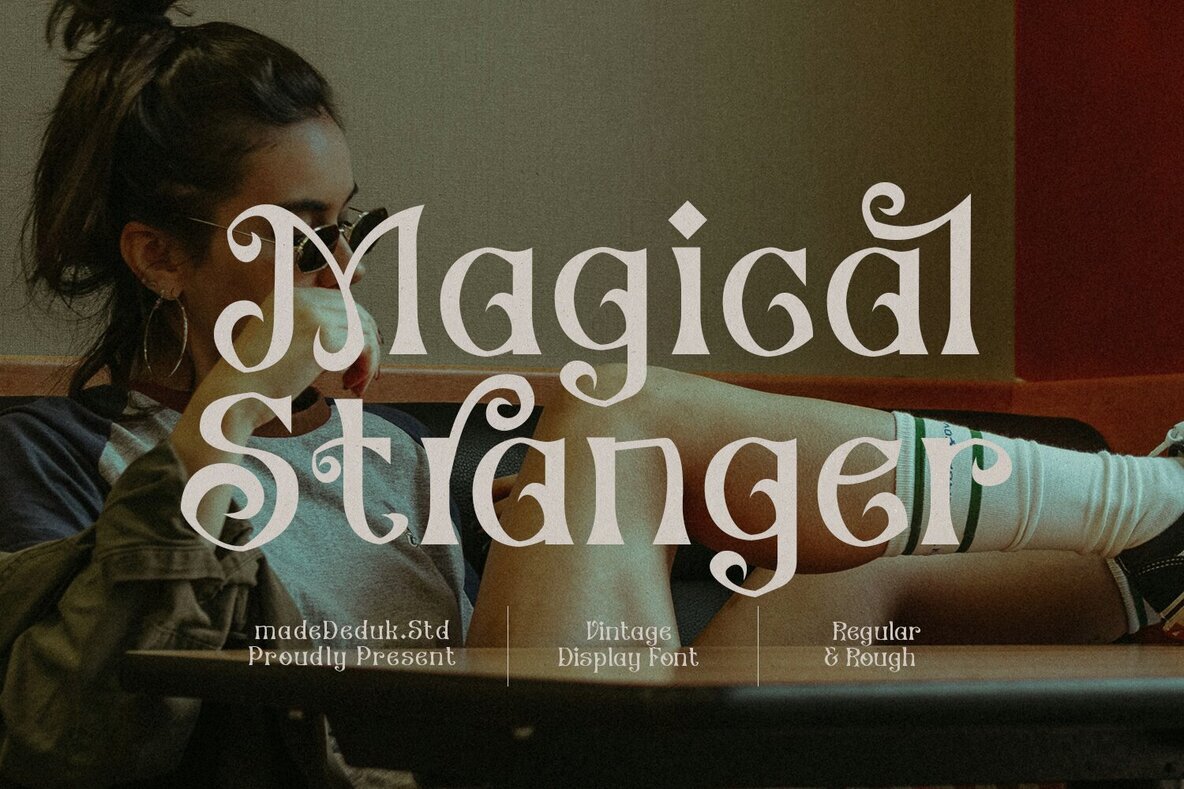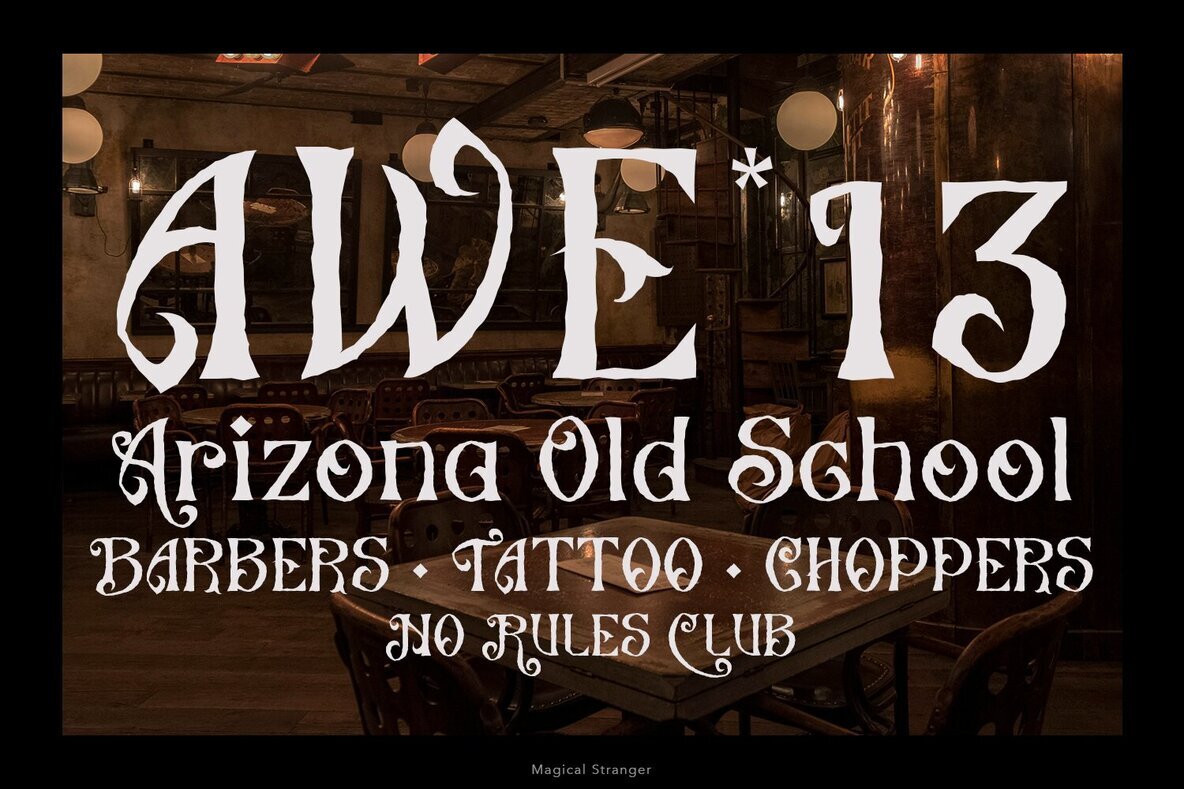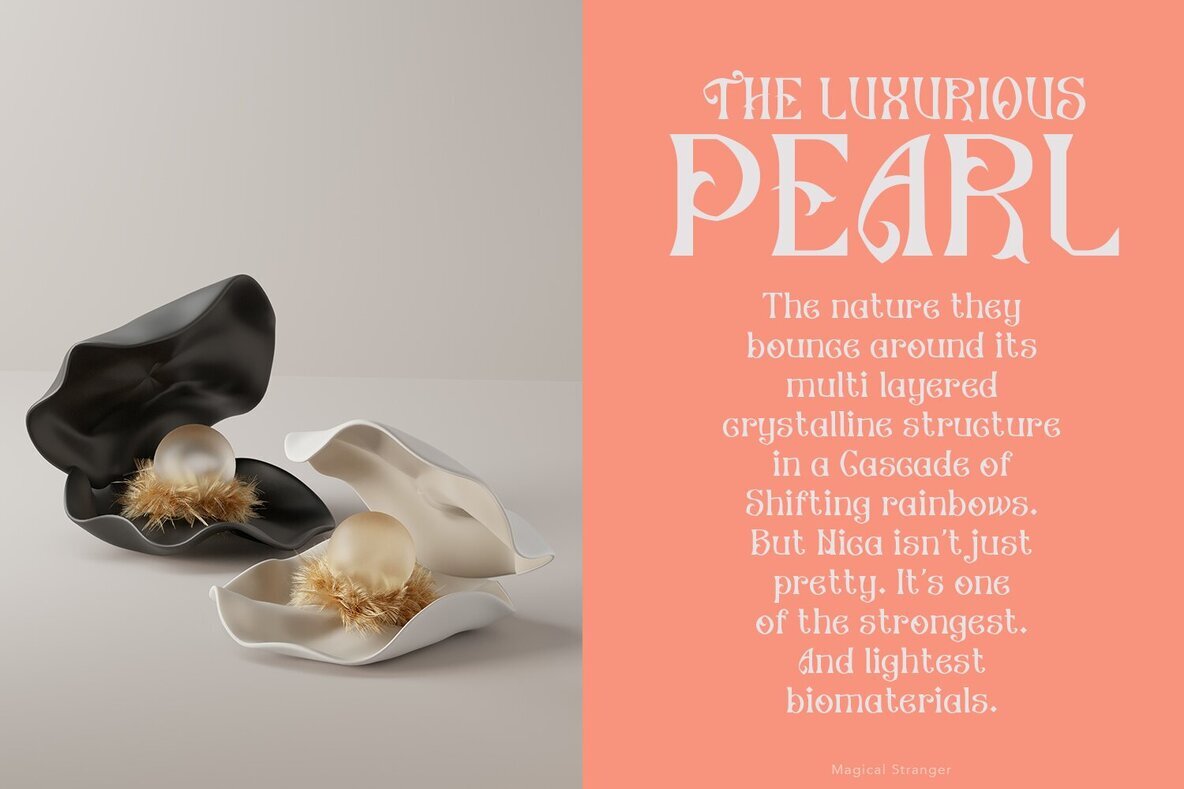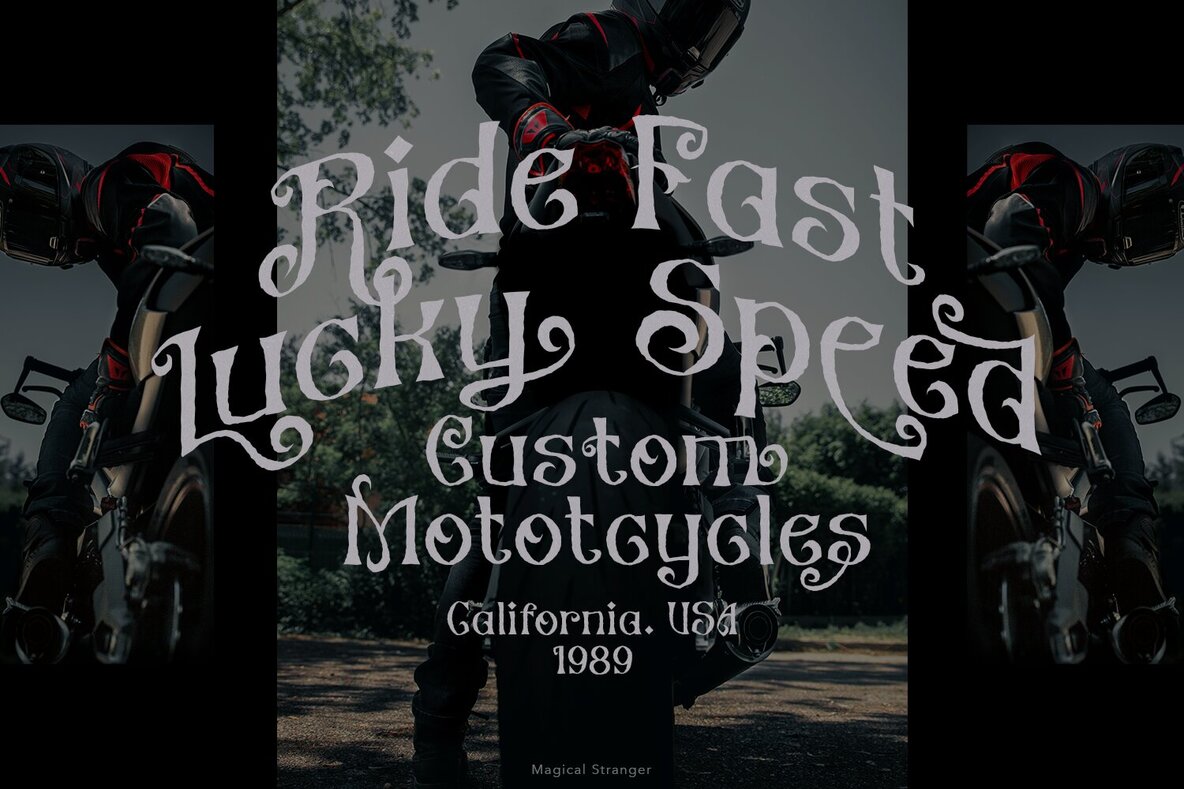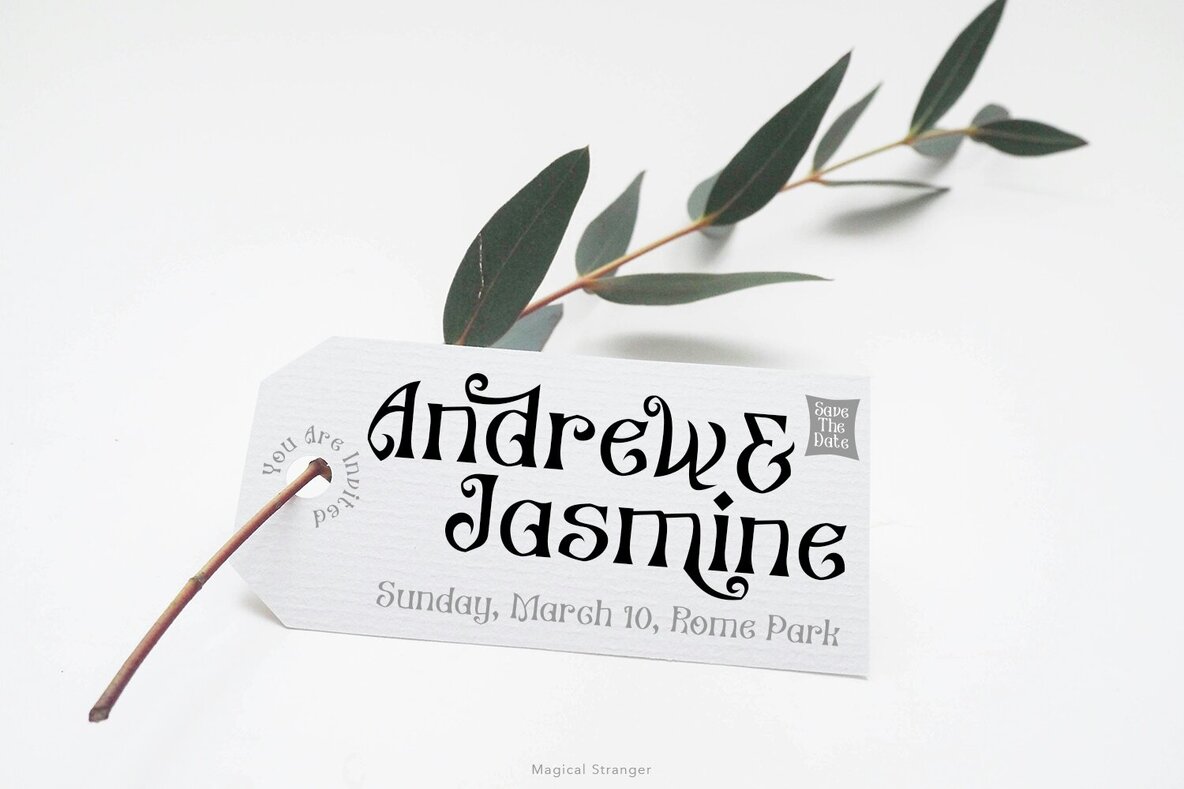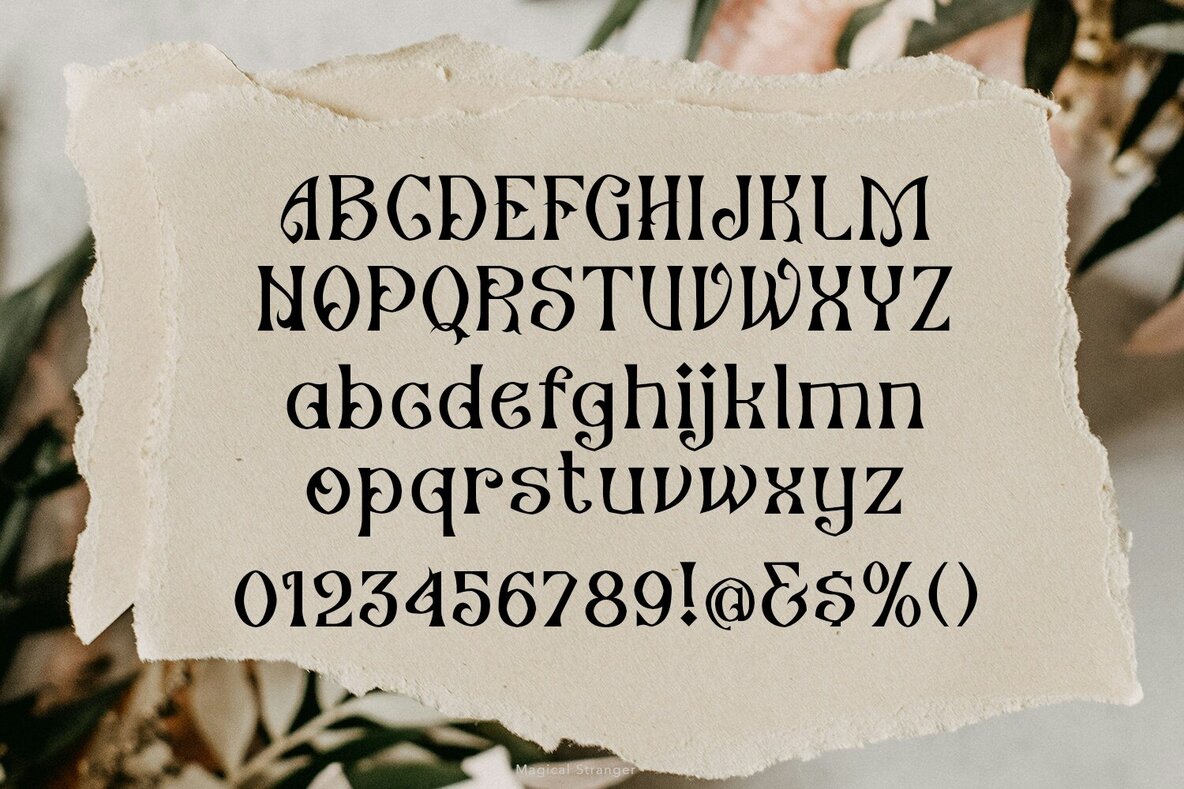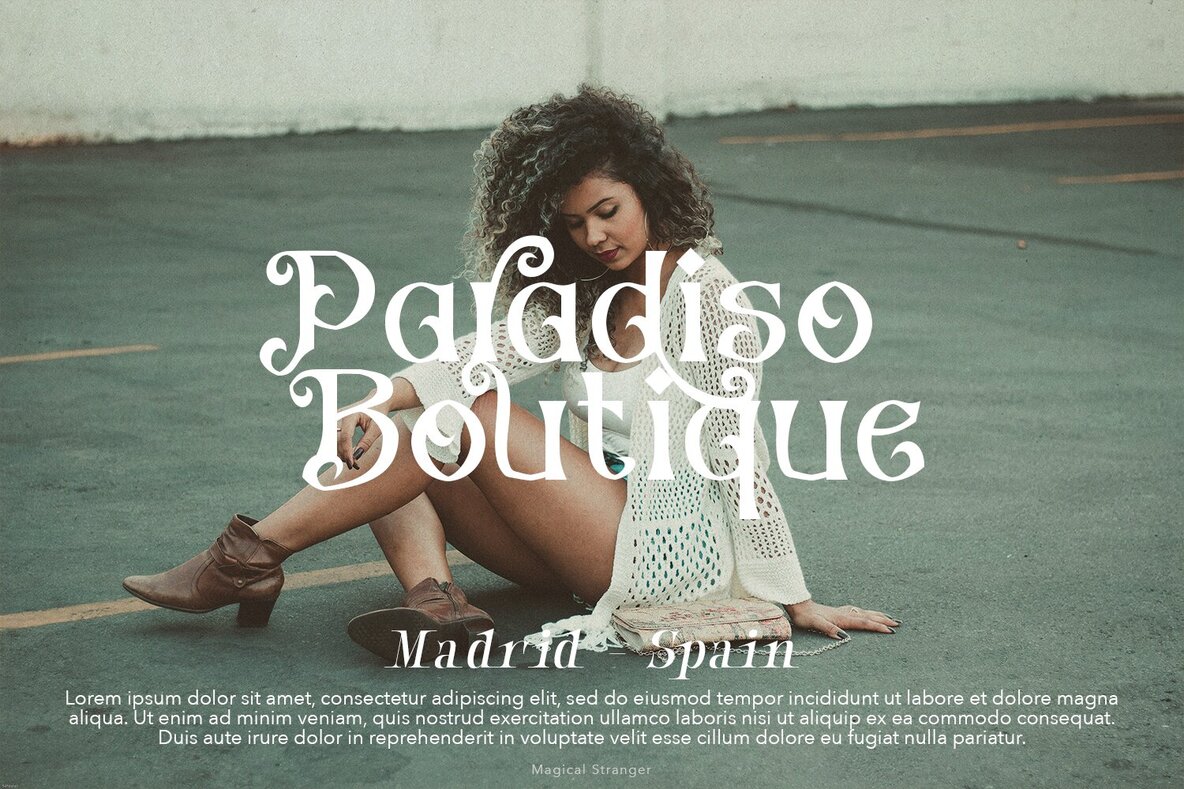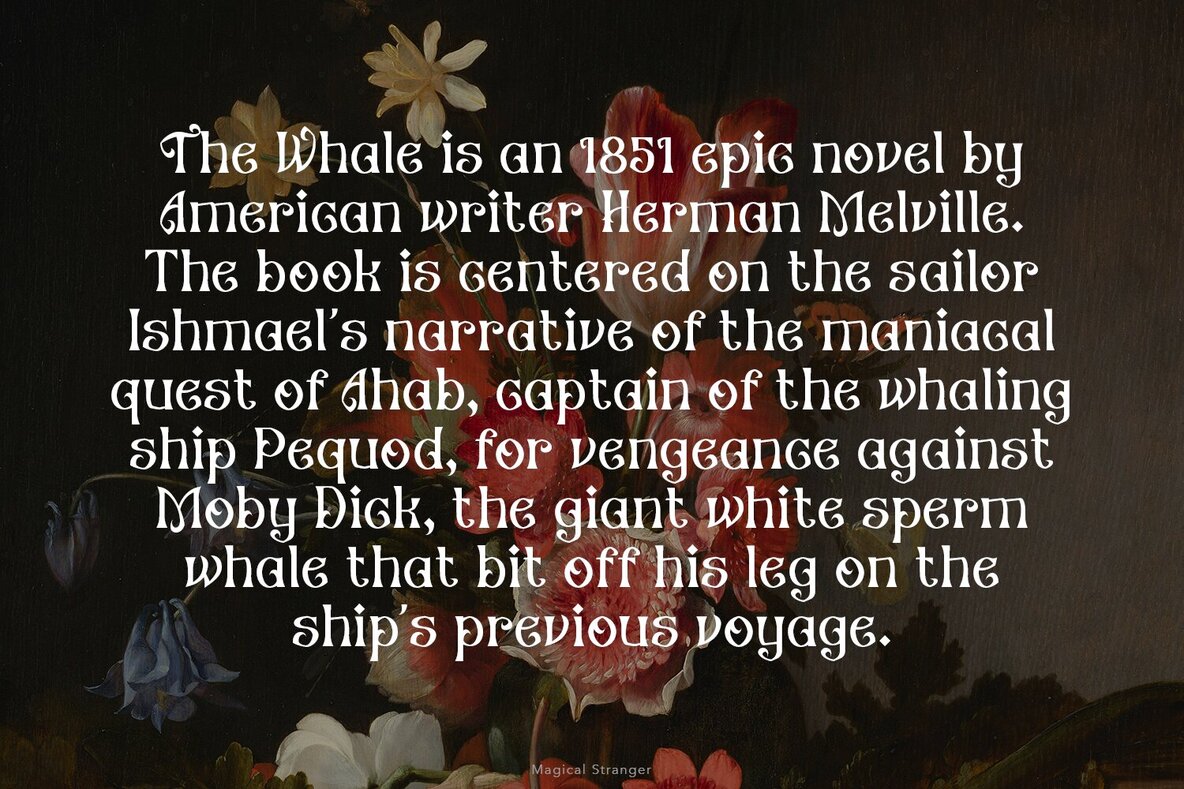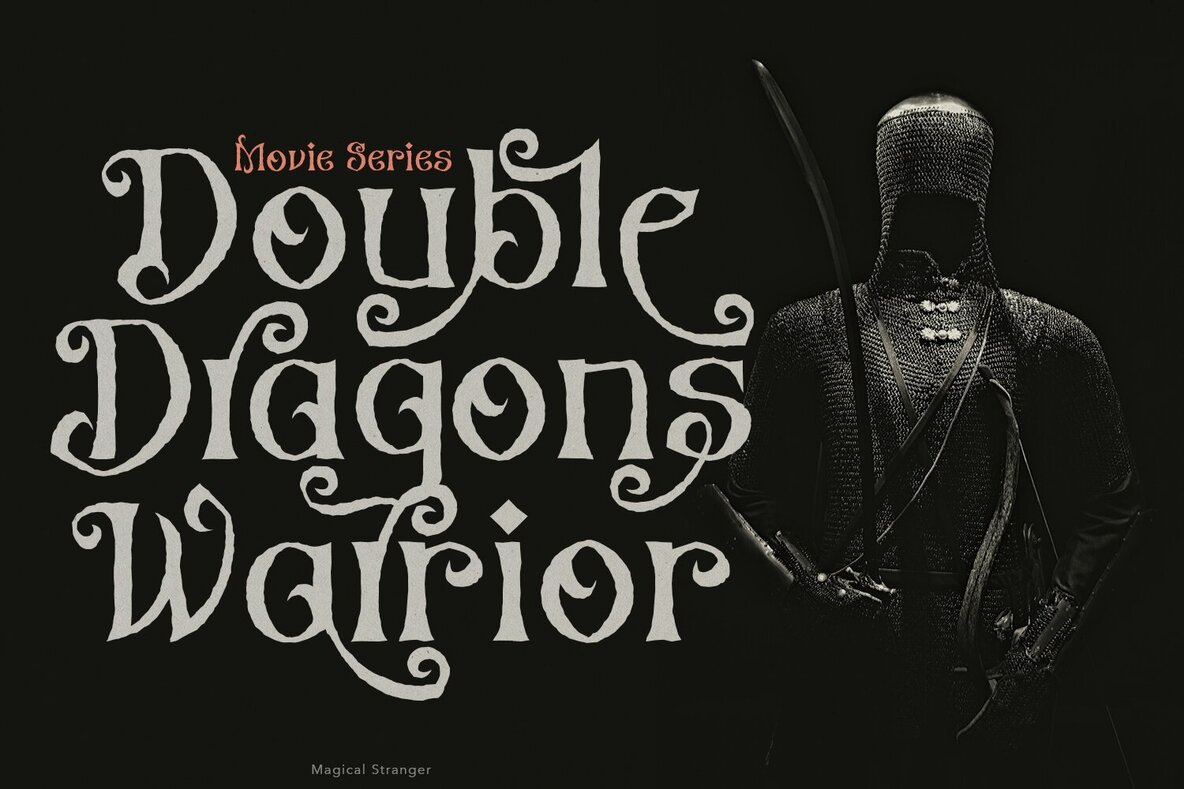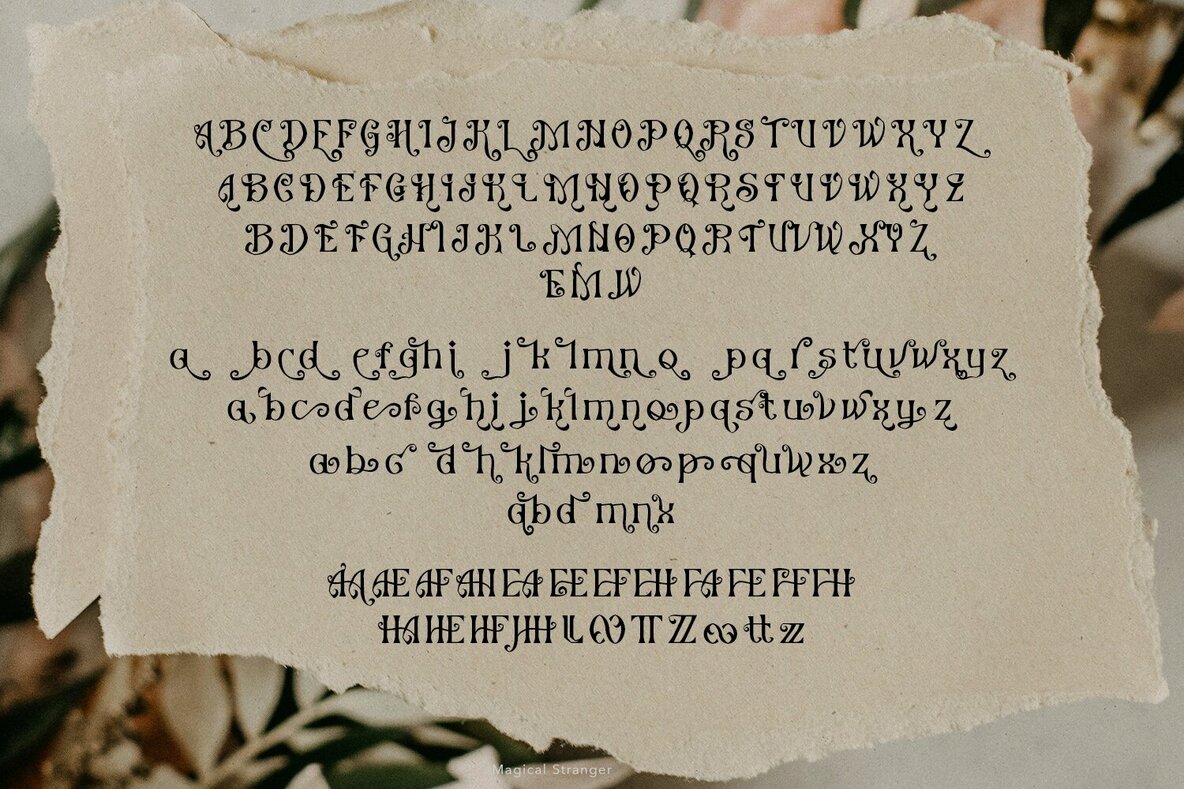
Magical Stranger Font
Magical Stranger is a serif display font that evokes the timeless elegance of 19th-century typography. With its classic, vintage aesthetic and high-contrast serifs, this font seamlessly fits into prestigious fashion and cultural settings. Ideal for designers seeking a retro and classic vibe, this typeface is your go-to for a wide array of display purposes. Let Magical Stranger infuse your projects with a sense of nostalgia and sophistication, elevating them to a realm of classic beauty.Magical Stranger